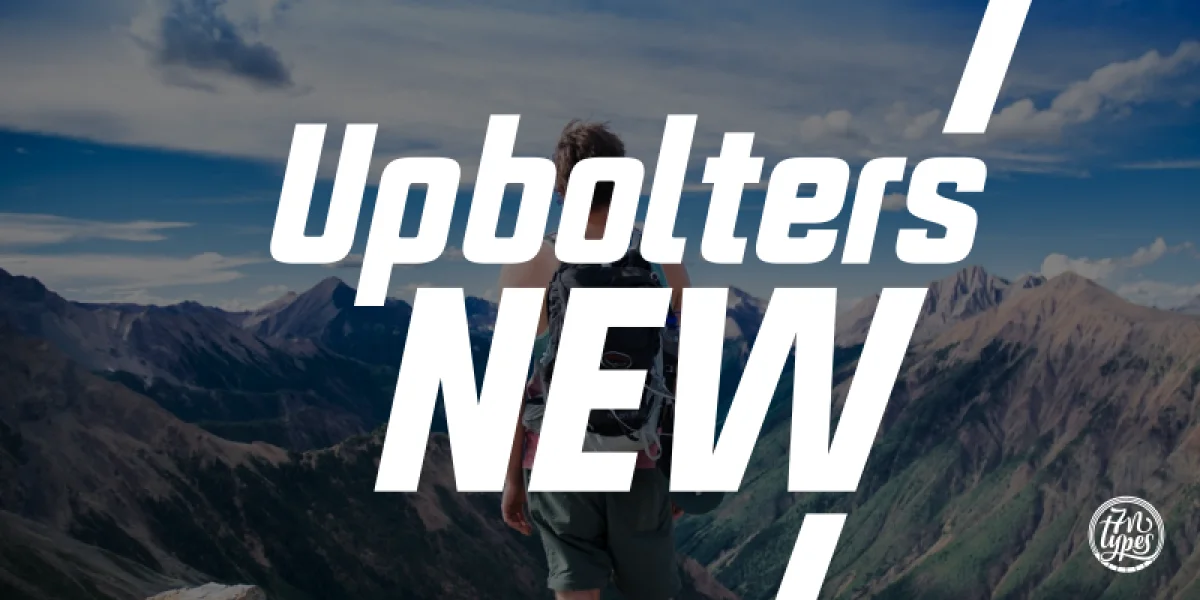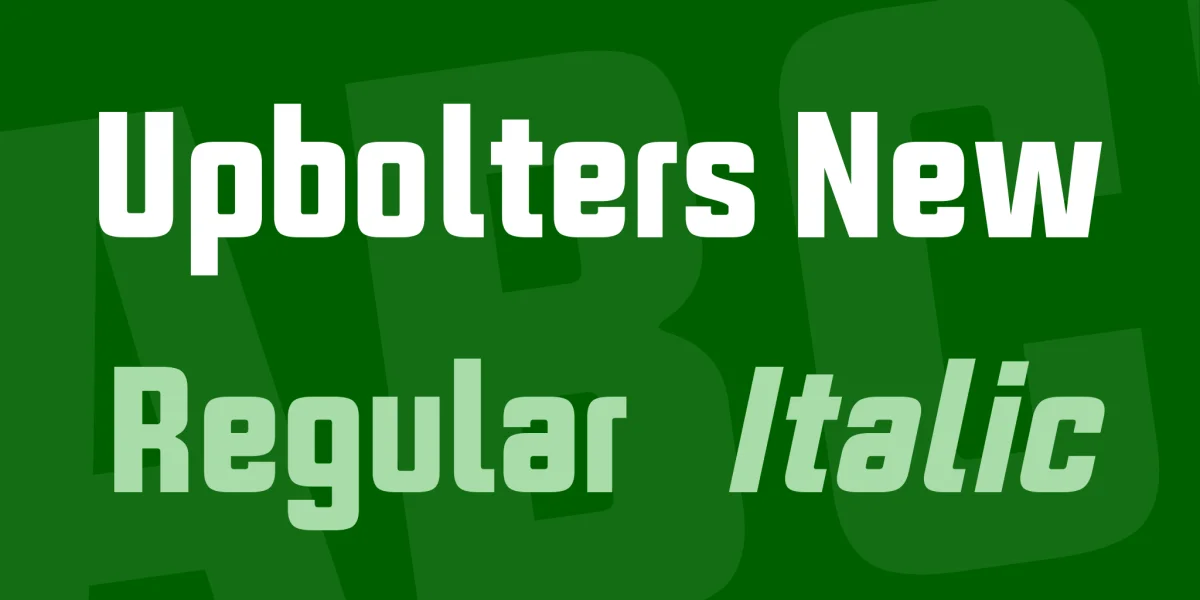
Upbolters New: the new version of the stunning and popular Upbolters Font, I designed in 2015.
If you already have the Upbolters Font, you also love this new one because if you don’t get the lowercase in the previous one, now you have it.
The Upbolters New type comes in 2 variations: Regular & Italic. As the previous one, Upbolters is strong and bold, which makes it great for titles & headlines. But at the same time it is also very legible, which makes it great for bigger body text, banners, flyers and other designs where you have (sub) text that needs to *pop*.